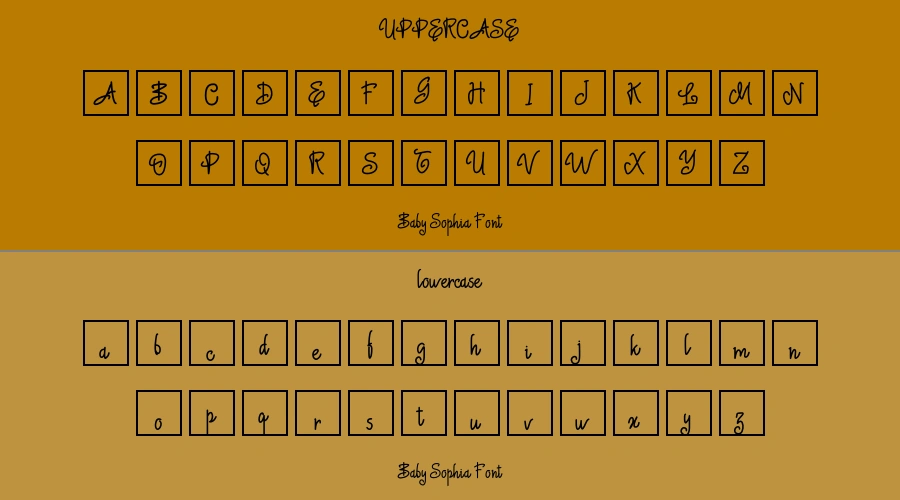
About Baby Sophia Font
Baby Sophia Font embodies typographic excellence through its masterful combination of elegant proportions and professional reliability. Created for poster art, this typeface delivers exceptional refinement and market confidence across all applications. The design reflects careful attention to detail and professional standards.
Advanced capabilities include distinctive decorative alternates and versatile stylistic sets, giving designers creative control. When used in creative titles, Baby Sophia Font exhibits remarkable language switching. The harmonious balance between joint detail and generational relevance sets this typeface apart.